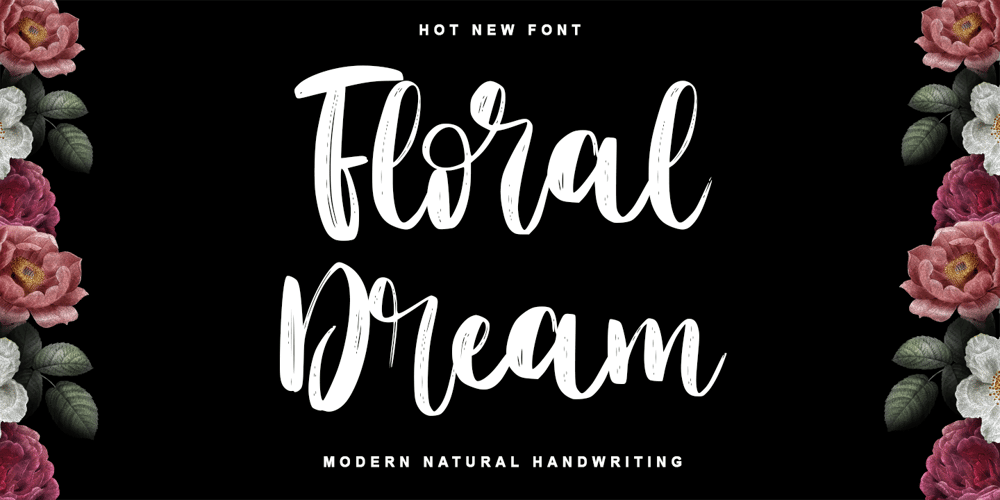
Floral Dream
Floral Dream font
Floral Dream Font Family was designed by Thomas Aradea and published by Letterara. Floral Dream contains 1 styles and family package options. Floral Dream is a bold font with great brushes, it will add a distinctly modern and contemporary feel to any design idea. It was inspired by a brush pen and is perfect for logos, t-shirts, branding, prints, and much more. This font is PUA encoded which means you can access all of the cute glyphs with ease! It also features a wealth of special features including ligatures.